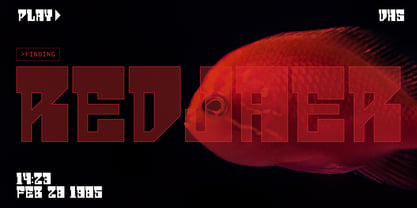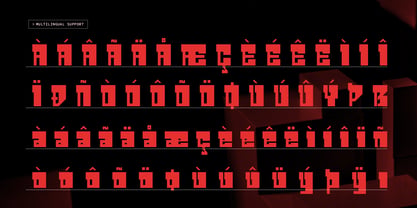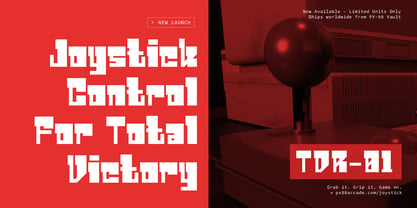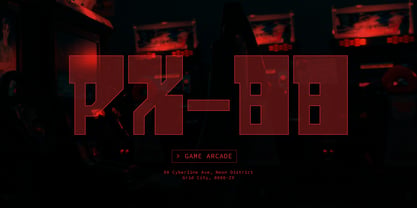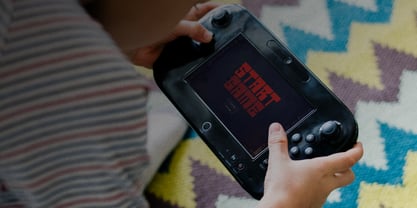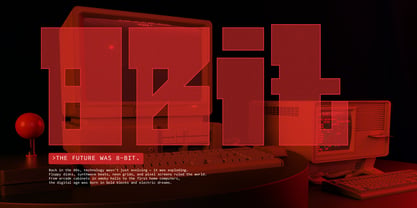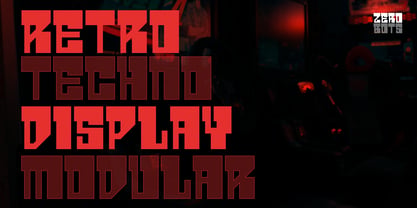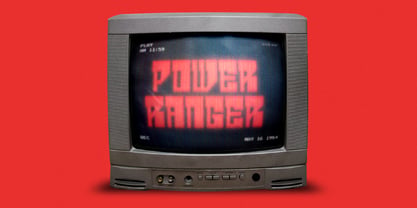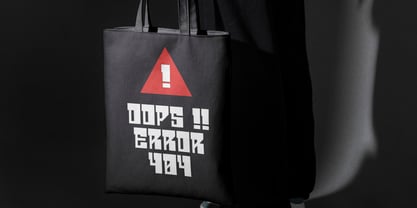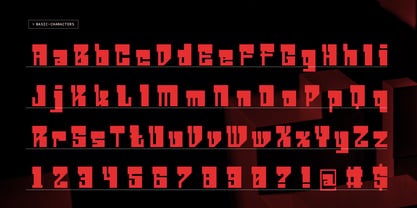
Zero Bots
by Tini Fitriani
The Zero Bots Font Family was designed by and published by Tini Fitriani. Zero Bots contains 1 styles. More about this family
Zero Bots | Techno Retro Display, from Gracetypestudio, suitable for any projects such as: logos, branding projects, homeware designs, product packaging, mugs, quotes, posters, shopping bags, t-shirts, book covers, name card, invitation cards, greeting cards, label, photography, watermark, special events, and all your other lovely projects that need a Techno Retro Display taste.
• Fonts include multilingual support